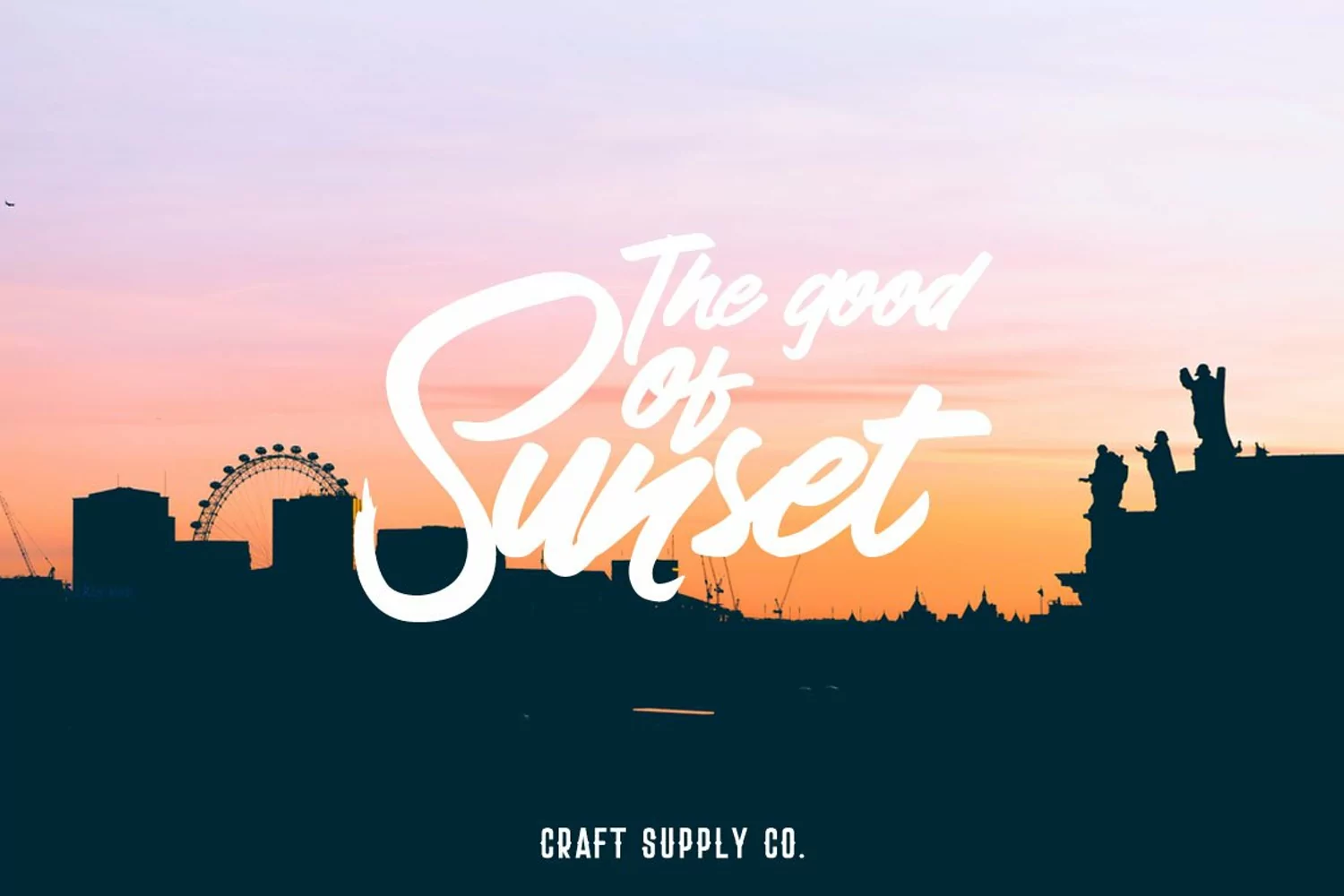
Introducing New Font : Stockport Extra & Brush is a cool combination between Sans Serif and Brush Script Font.Stockport Extra & Brush is suitable for Logo, greeting cards, quotes, posters, branding, name card, stationary, design title, blog header, art quote, typography art, modern envelope lettering or book design.
Stockport Extra & Brush also suitable for happening style like handdrawn design or watercolor design theme, craft design, any DIY project, book title, wedding font, pop vintage design, or any purpose to make our art/design project look pretty and trendy.